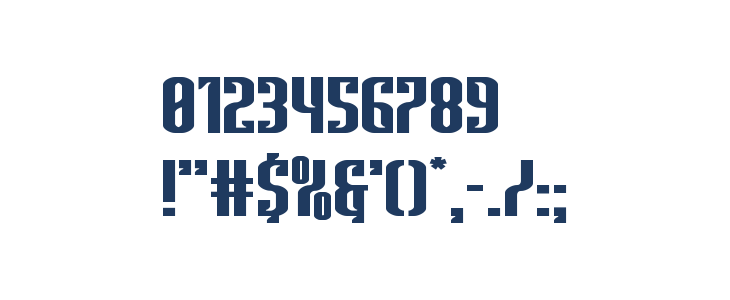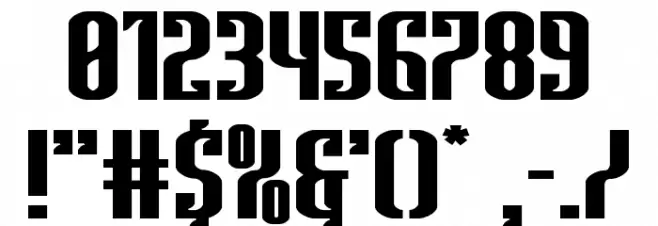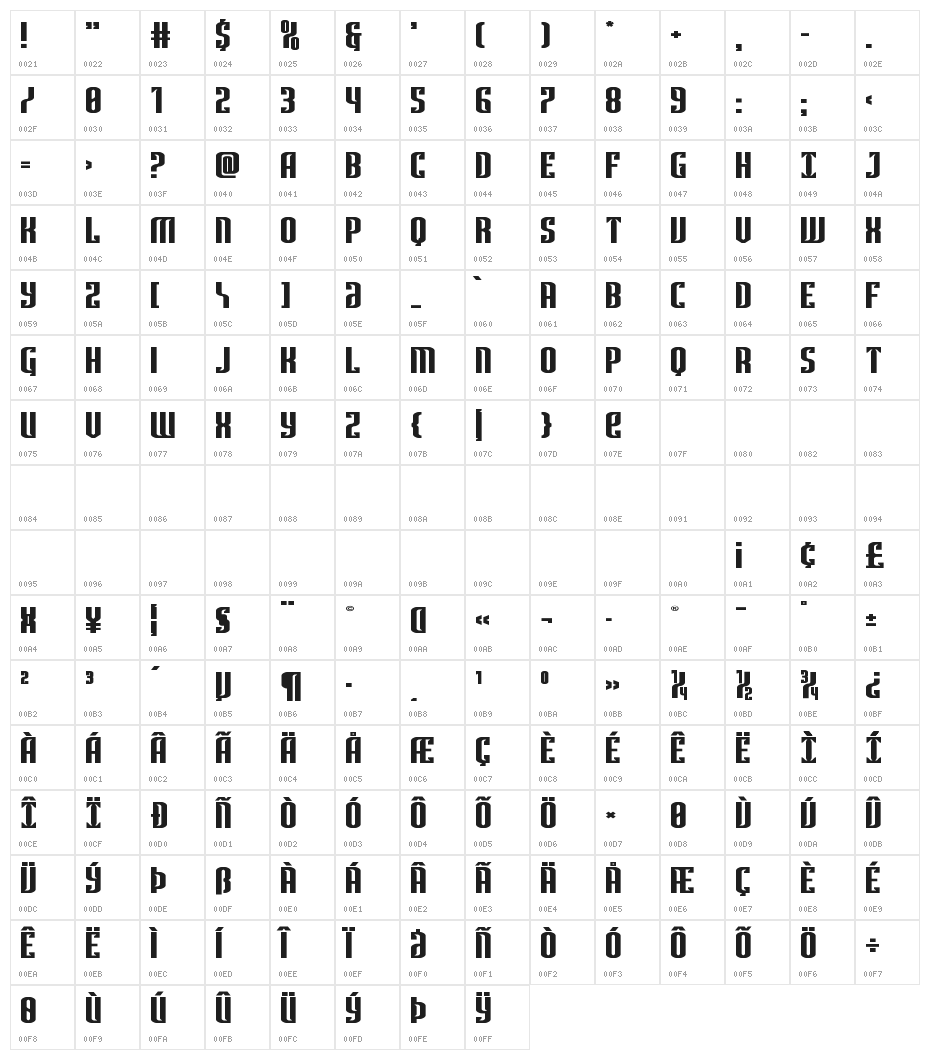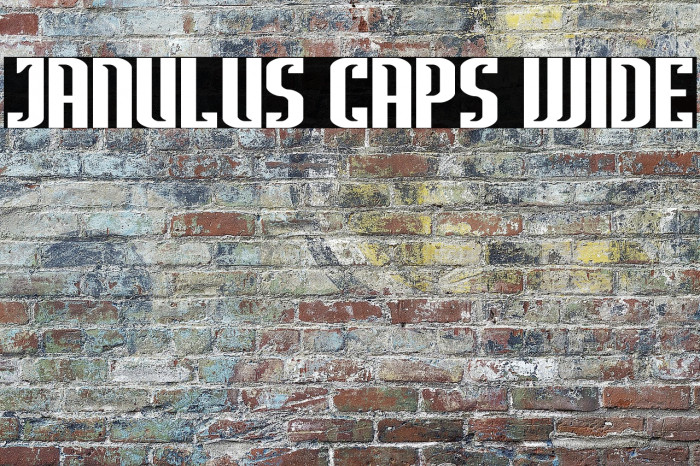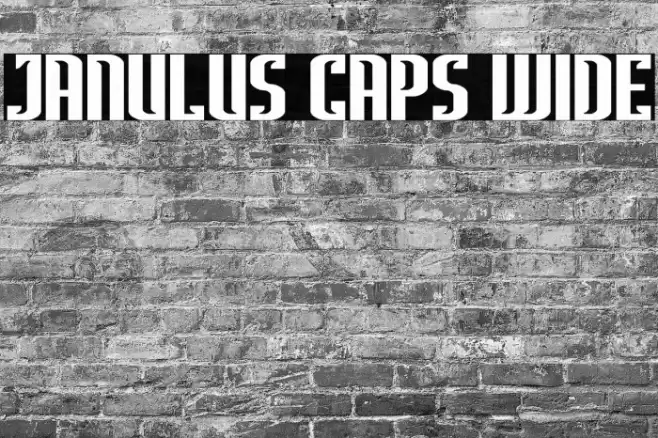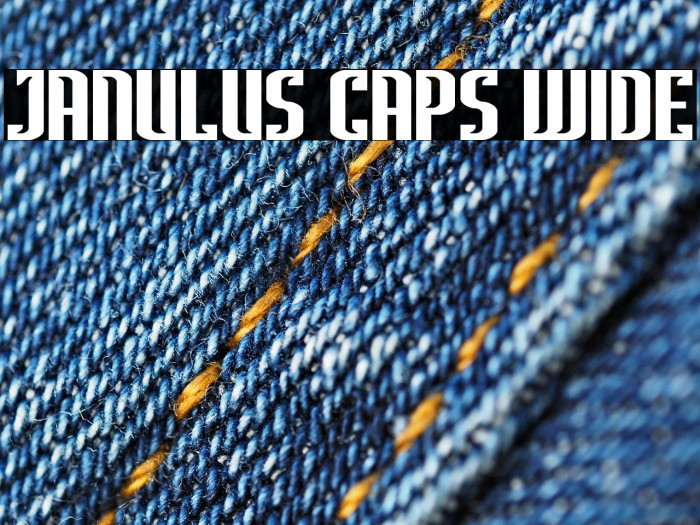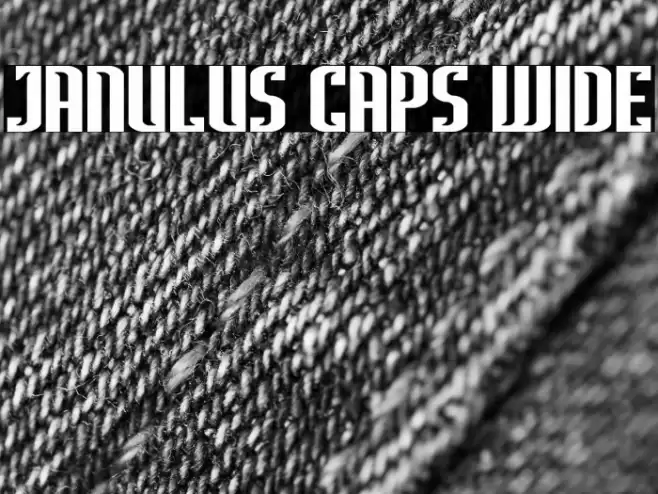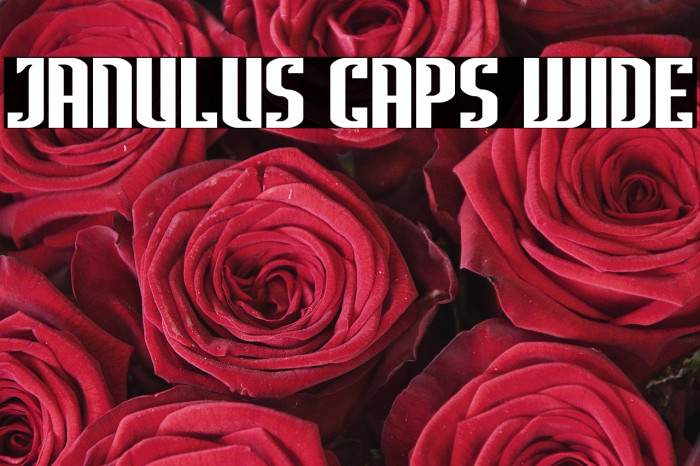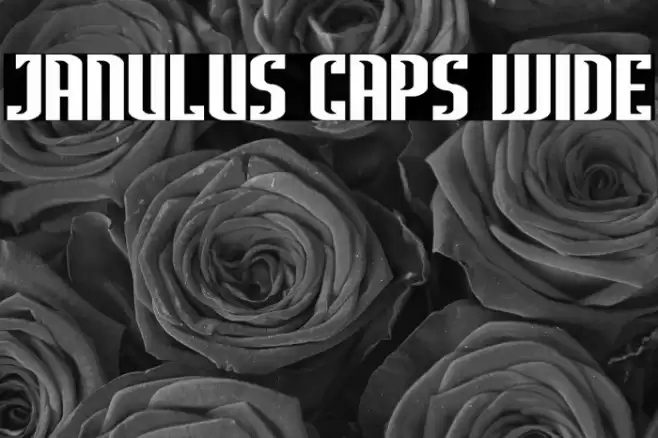
Janulus Caps Wide Font
Janulus Caps Wide Description
This font exhibits a bold and striking appearance with a strong geometric influence. The characters are wide and have a distinct block-like structure, making them highly legible and impactful. The uppercase letters are uniform in height, while the lowercase letters maintain a consistent style, contributing to a cohesive look. The numbers are similarly bold and clear, ensuring readability. Special characters are designed to match the overall aesthetic, with sharp angles and clean lines. This font is ideal for making a strong visual statement.